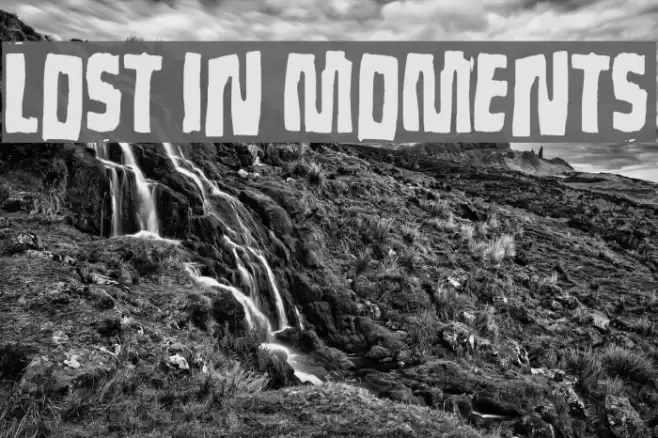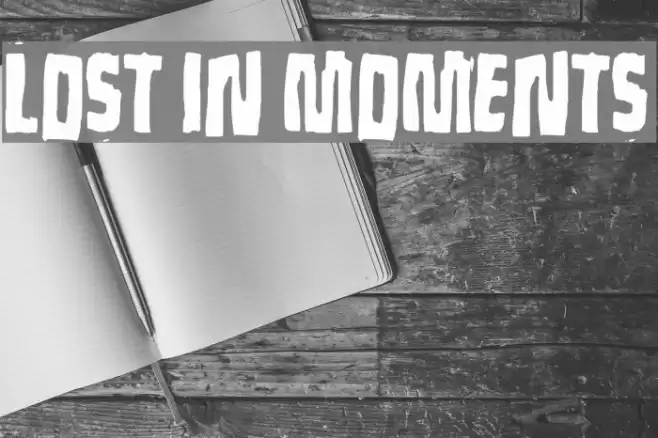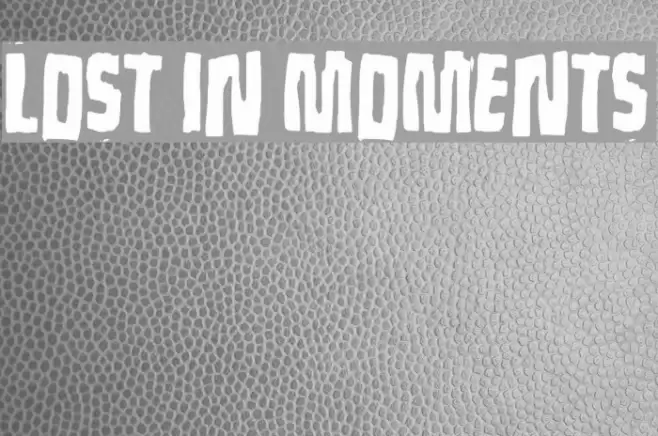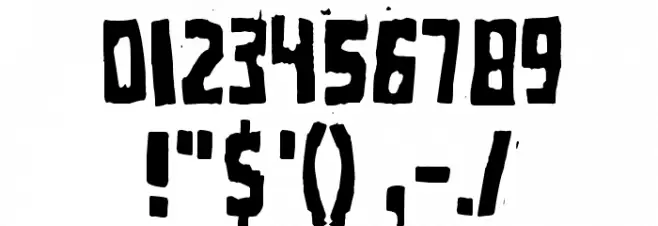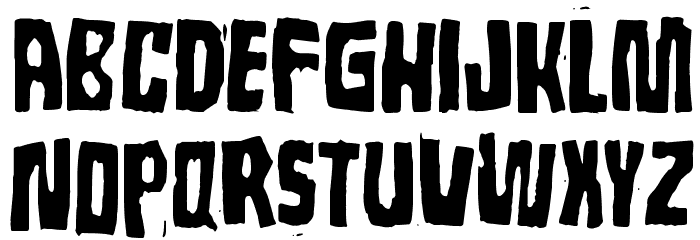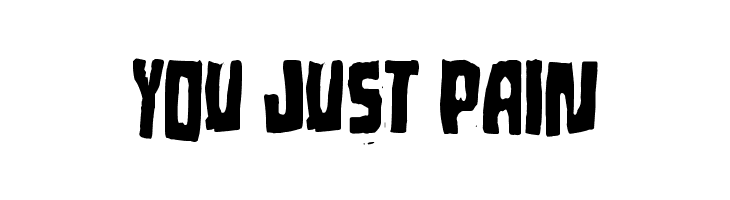
Lost in moments Font
Lost in moments Description
This font features a bold and rugged appearance, characterized by its uneven and hand-drawn style. The letters have a distressed, almost grunge-like texture, giving them a raw and organic feel. The uppercase and lowercase characters maintain a consistent width, while the numbers and special characters follow the same aesthetic, ensuring a cohesive look. The font's irregular edges and bold strokes make it stand out, ideal for projects that require a strong, impactful visual statement.
A bold, hand-drawn font with a rugged, distressed appearance from Distorted Eroded fonts.
- Proposed Projects: Perfect for album covers, posters, and branding projects that require a bold, edgy look.